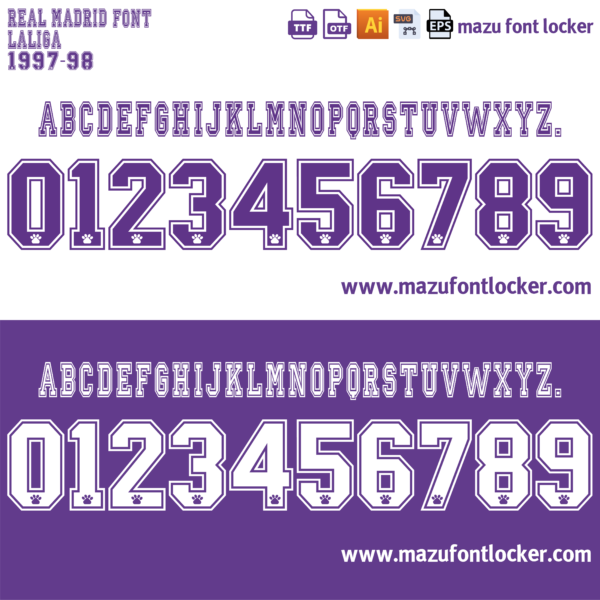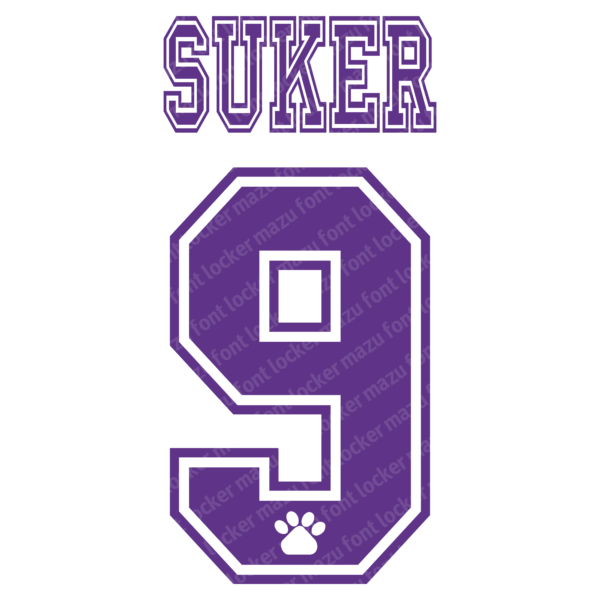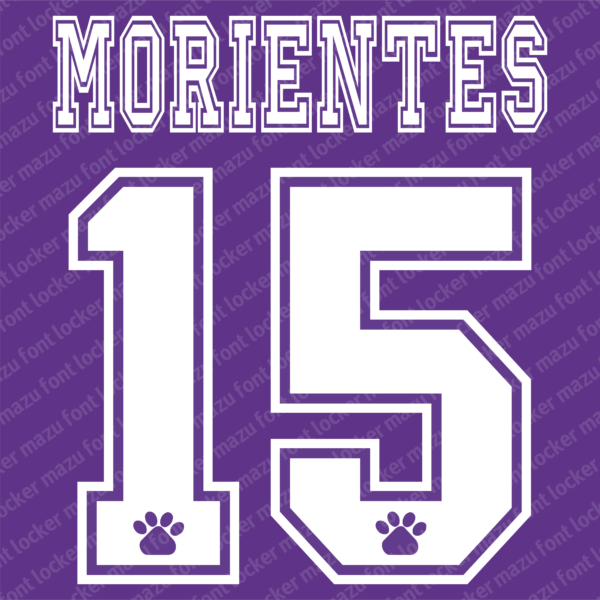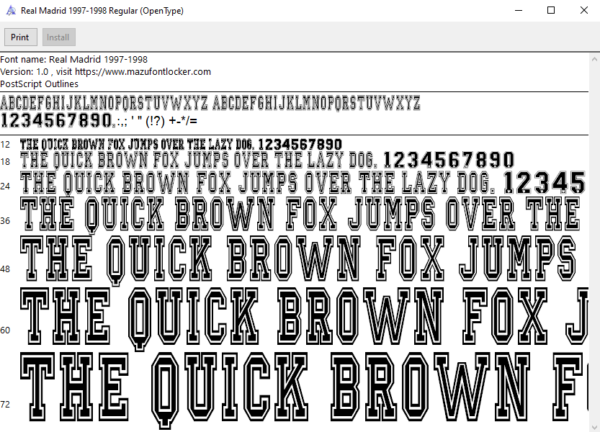
Real Madrid 1997-98 Font Vector – Epic Los Blancos Legends Masterpiece
This font captures the commanding, historic, and precision-crafted lettering that perfectly reflects Real Madrid’s majestic club identity, proud Spanish heritage, winning mentality, and timeless football excellence — delivering unmatched authenticity, premium quality, explosive energy, and elite European champion style for professional jersey mockups, dynamic football graphics, premium sports branding, passionate fan creations, and high-end design projects.
Real Madrid 1997-98 Font Vector – Legendary All-White Typeface
The Real Madrid 1997-98 Font Vector is a premium typeface that accurately recreates the official match lettering worn by Real Madrid during the historic 1997-98 season. This high-quality vector font kit captures the bold, elegant, and instantly recognizable typography that perfectly complements the club’s iconic all-white identity.
Designed for professional designers, football enthusiasts, and passionate Real Madrid supporters, the Real Madrid 1997-98 Font Vector delivers exceptional authenticity for creating realistic jersey mockups, football merchandise, social media graphics, match posters, and custom fan artwork. Every character has been carefully recreated to match the classic visual style of one of the world’s greatest football clubs.
Why Choose Real Madrid 1997-98 Font Vector
This font stands out thanks to its precise vector construction and authentic club styling. Every letter and numeral has been meticulously recreated to match the official shirt lettering used throughout the successful 1997-98 La Liga and UEFA Champions League campaign. Whether you’re producing professional kit templates or creating eye-catching football content, the Real Madrid 1997-98 Font Vector delivers a genuine match-ready appearance.
The lettering featured in the Real Madrid 1997-98 Font Vector combines clean geometric lines with powerful modern proportions. The result is a premium and highly readable typeface that reflects Real Madrid’s royal heritage, global dominance, and winning mentality.
- Complete uppercase A–Z alphabet and numbers 0–9 in authentic Real Madrid 1997-98 style
- Includes authentic La Liga badge glyph placement beneath player numbers
Real Madrid 1997-98 Season
The 1997-98 season was a triumphant year for Real Madrid as they won the UEFA Champions League under manager Jupp Heynckes, defeating Juventus in the final. Wearing their legendary all-white kit, Los Blancos added another European crown to their illustrious history and solidified their status as one of the biggest clubs in world football.